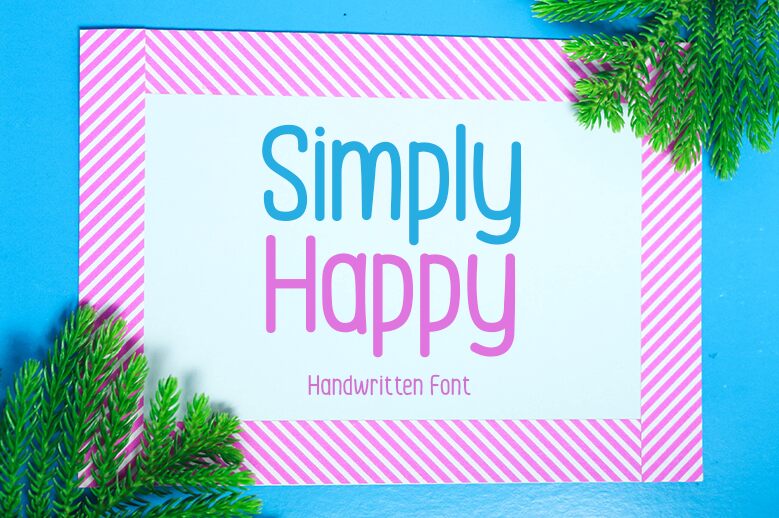
Simply Happy, a charming handwritten font crafted by Md Shohail Bhuian, exudes a delightful and whimsical essence. The fluid, playful strokes and organic irregularities lend a sense of warmth and authenticity, evoking feelings of joy and positivity. The font's distinctive character showcases a perfect balance between structure and freeform expression, making it a captivating choice for various design applications.
This versatile font is well-suited for a wide range of projects, from invitations and greeting cards to branding materials and product packaging. Its playful yet legible nature makes it an ideal selection for creating engaging content, whether it's in the realm of print or digital media. The font's adaptability allows designers to incorporate it seamlessly into designs that aim to convey a lighthearted, approachable, and uplifting aesthetic.
Simply Happy